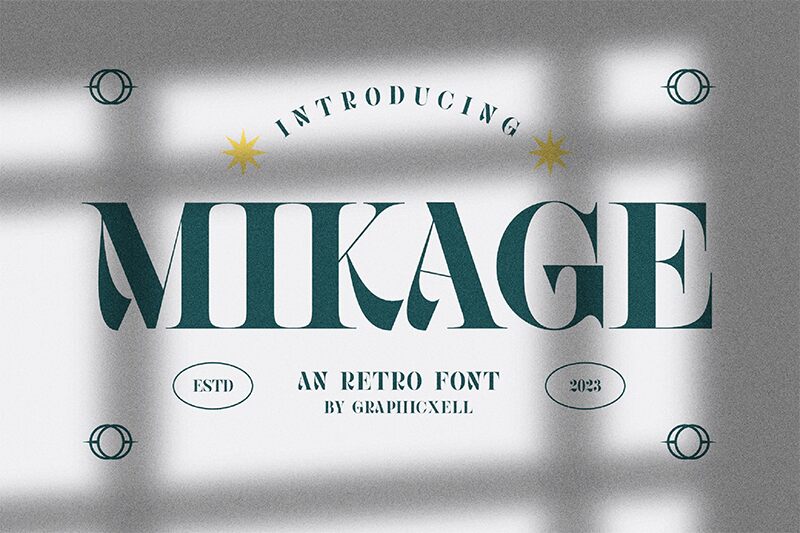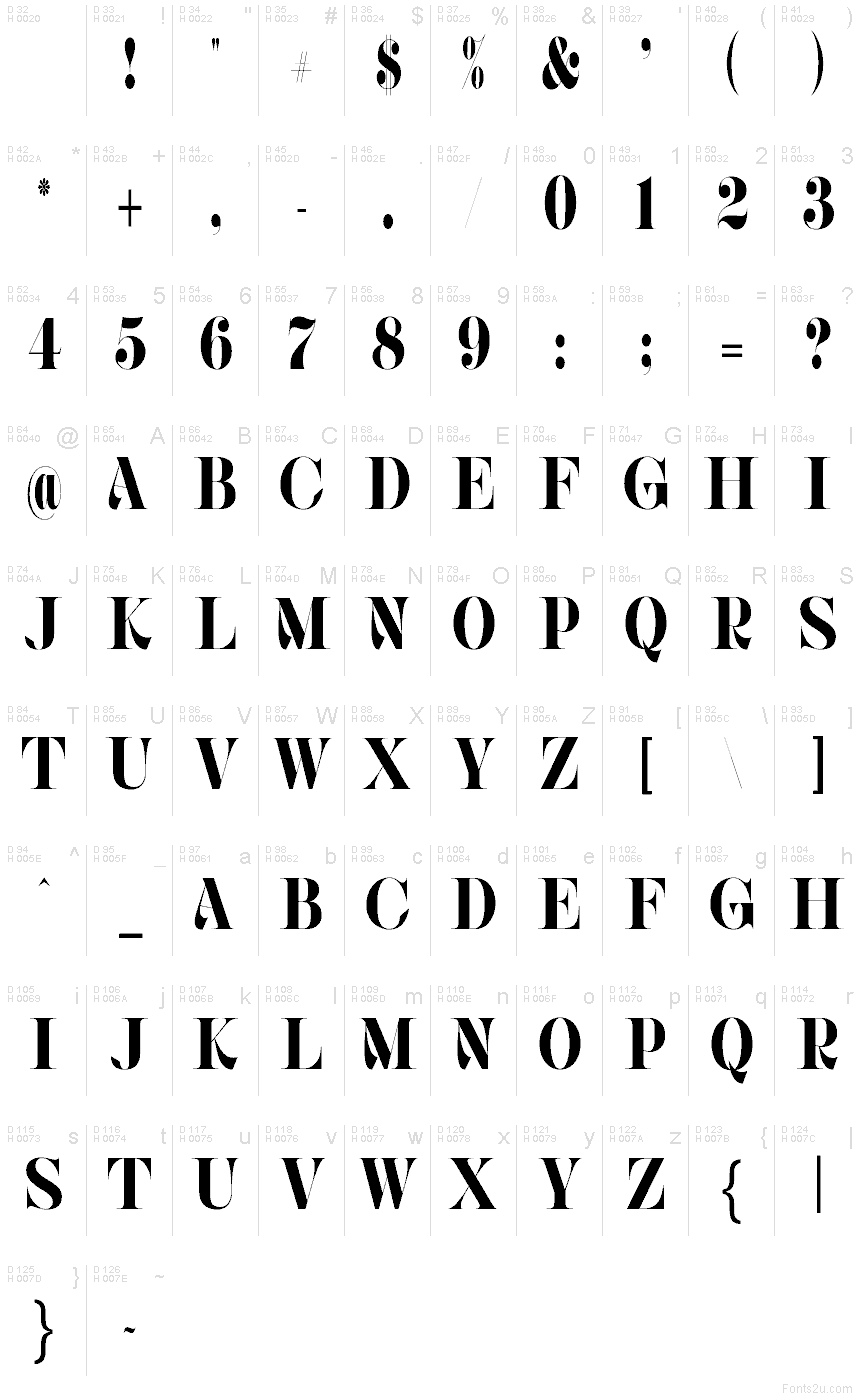
Mikage
Mikage font by Graphicxell is a free stencil serif typeface. Its signature move is the chiseled cut running through each letter, carving bright slivers of negative space that feel both architectural and elegant. Thick, inky strokes meet knife-sharp wedges, creating a dramatic rhythm that catches light like polished stone. The result is a serif that reads luxurious and modern, with just enough bite to keep it memorable.
Using Mikage, headlines lock up with confidence and logos gain a sculptural presence. It shines on fashion branding, magazine mastheads, premium packaging, posters, book covers, and album art. This free font likes generous scale—set it large with slightly tight tracking to deepen the impact. For copy, pair it with a quiet geometric sans to let Mikage do the show-stopping work.